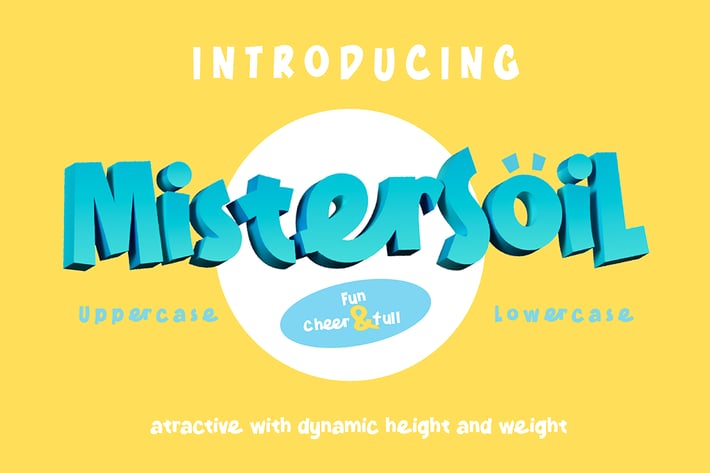
Mister Soil - Decorative Font
Introducing Mister Soil, a simple, decorative, and fun display font. Its unique and lovely feel.
So perfect for you who needs a typeface for logo designs, magazine, social media, brochure, and many more.
+ Uppercase
+ Lowercase
+ Numerals
+ Punctuation